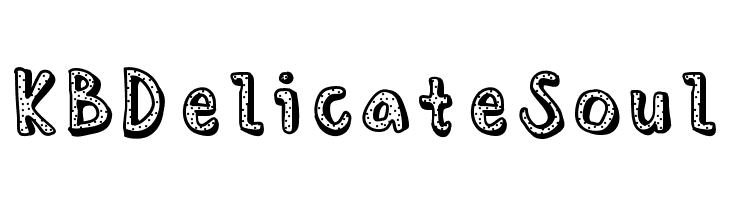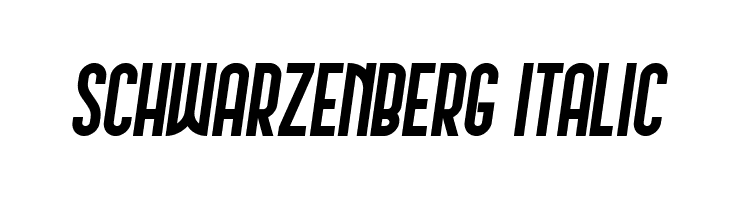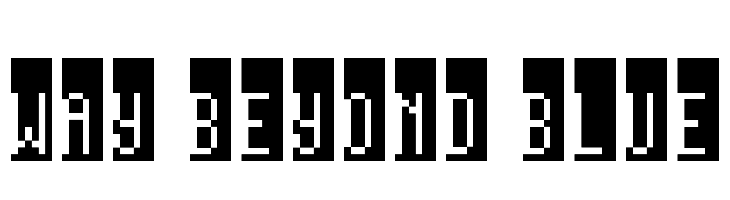
A bold, pixelated font with a retro digital aesthetic.
A bold, semi-condensed font with a futuristic and geometric design.
An elegant, light italic font with a dynamic and fluid style.
A playful, handwritten font with a casual and dynamic style.
A playful, hand-drawn font with a dotted outline and whimsical style.
A bold, decorative font with intricate, tattoo-inspired designs.
A bold, futuristic font with angular edges and a dynamic slant.
A bold, decorative font with outlined characters and strong contrast.
A modern, geometric font with clean lines and a minimalist style.